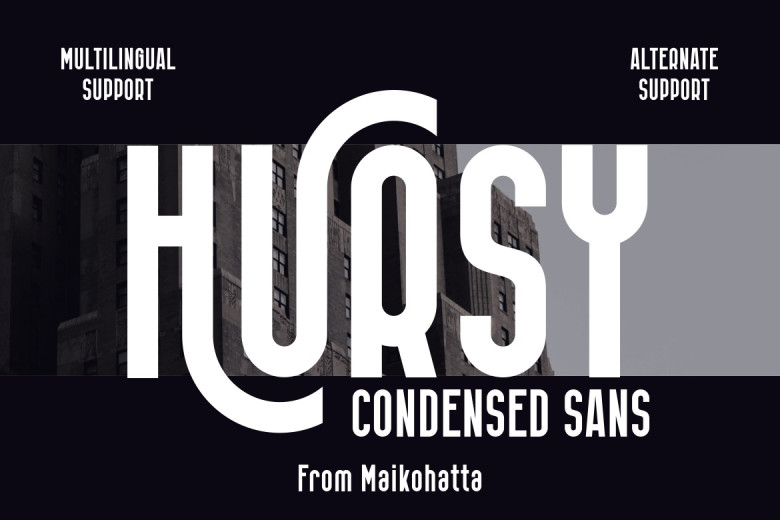
Hursy Font
Hursy Condensed Sans Font, Modern Font is an authentic and bold display font ideal for branding projects such as logo design, template design or esports, among other uses. It excels in many settings.
Hursy Sans Serif Font